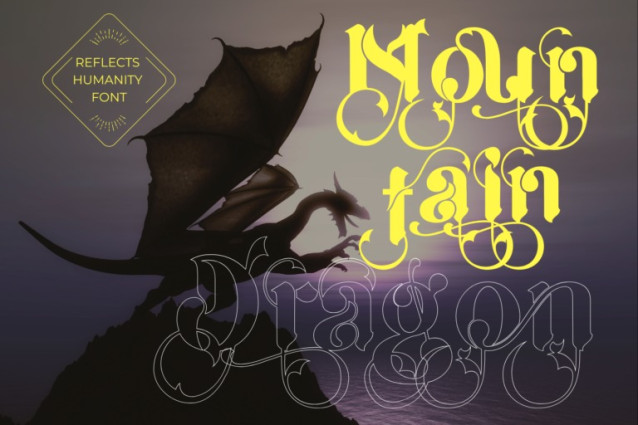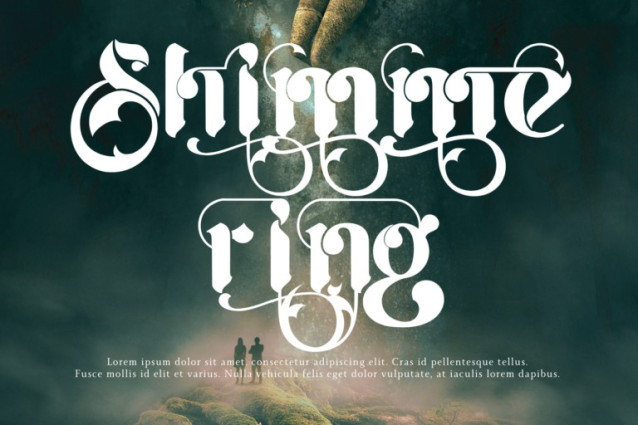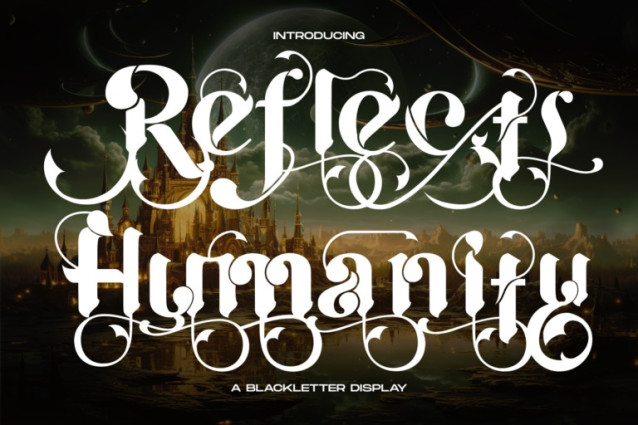
Reflects Humanity Font
Reflects Humanity Font – A Modern Blackletter Display Font. Step into a world of intricate beauty and bold statements with Reflects Humanity, a stunning display font that reimagines traditional Blackletter style with a contemporary, decorative twist. This font masterfully blends the historical weight of Gothic script with ornate flourishes and modern sensibilities, creating a truly unique typographic experience. Reflects Humanity is crafted for designers seeking to make a powerful visual impact. Its elaborate details and dramatic flair make it stand out effortlessly. The rich collection of special ligatures provides exceptional versatility for creating custom logos, captivating headlines, and artistic lettering.
Features:
✔ Uppercase & Lowercase Letters
✔ 100+ Special Ligatures & Swashes for unique typography
✔ Numerals & Punctuation for versatile usage
✔ Accented Characters for multilingual support
This font exudes elegance and creativity, making it the perfect choice for designers looking to add a sophisticated yet artistic touch to their work.
About 100 ligatures combined with Stylistic Alternates Font: